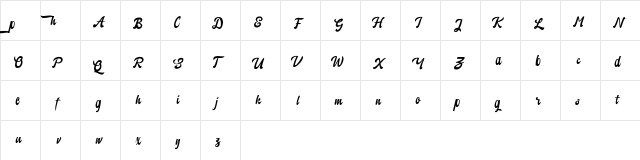
Retrocket Regular
Design Context for Retrocket Typeface
Retrocket has the warm character of retro typography — evoking diners, record sleeves, and the golden age of print advertising.
Font Pairing: Combine Retrocket with a simple slab or neutral sans — period-accurate companions reinforce the vintage feel without competing for attention.
Pro Tip: Use Retrocket for headlines and pull quotes rather than body copy — its personality is best appreciated in short, focused bursts.